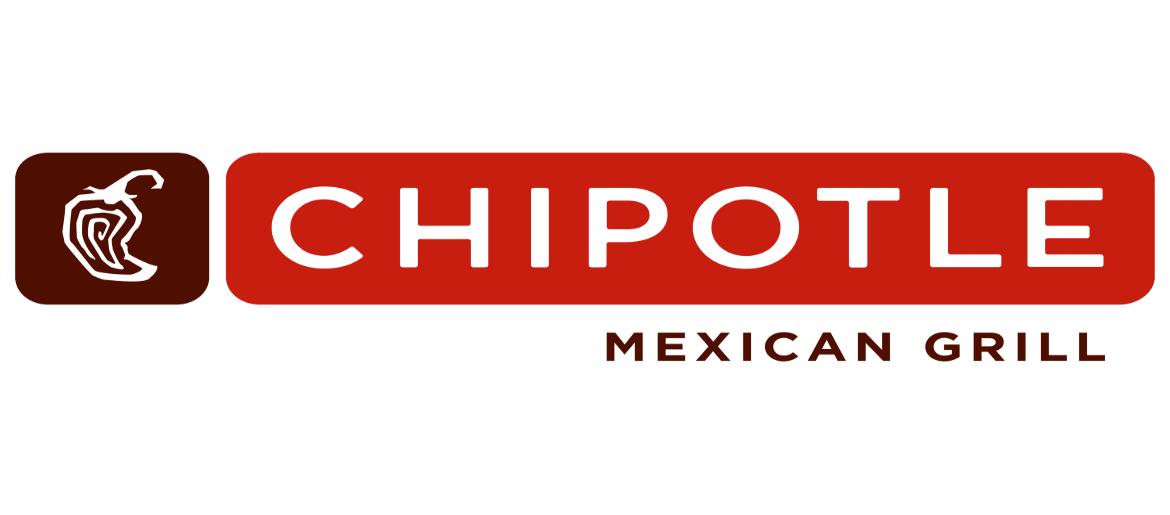
Chipotle Font
The Chipotle Font embodies the modern, bold, and flavorful identity of the popular fast-casual restaurant chain. Clean, strong, and approachable, it blends contemporary sans-serif design with a subtle rustic charm, perfectly reflecting the brand’s commitment to fresh, handcrafted meals. The original font is Oblivian Semi-Bold, but a free alternative is available for your projects.
About Chipotle
Chipotle Mexican Grill is an American fast-casual restaurant chain founded in 1993 in Denver, Colorado. Famous for its burritos, tacos, and bowls made with responsibly sourced ingredients, Chipotle has grown into a global brand. The Chipotle Font reinforces the brand’s philosophy of real food and authentic flavor by reflecting freshness, quality, and a modern yet inviting personality.